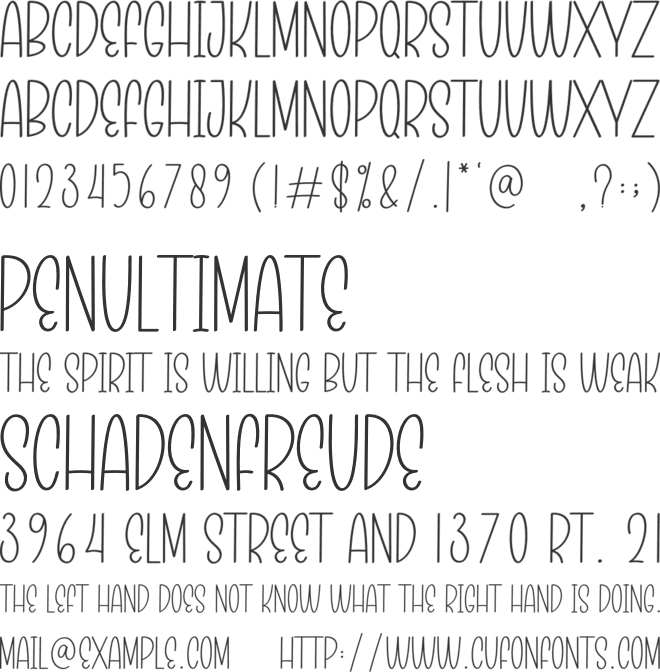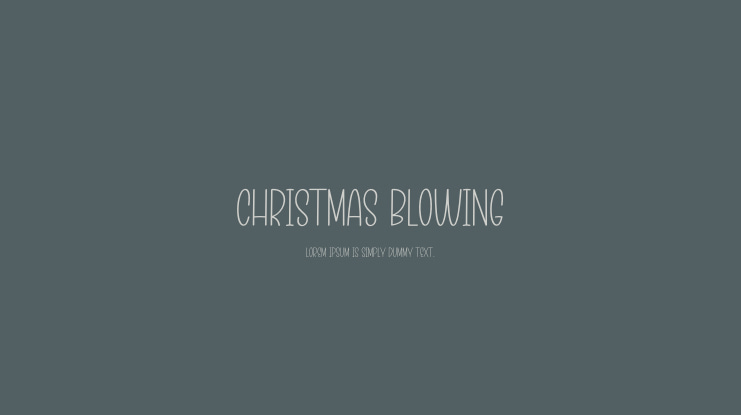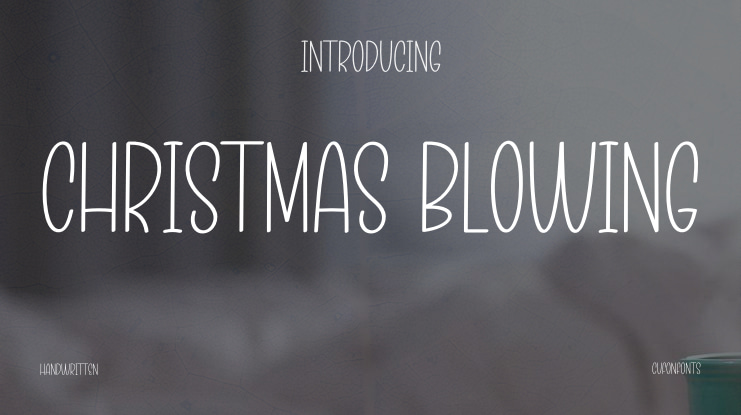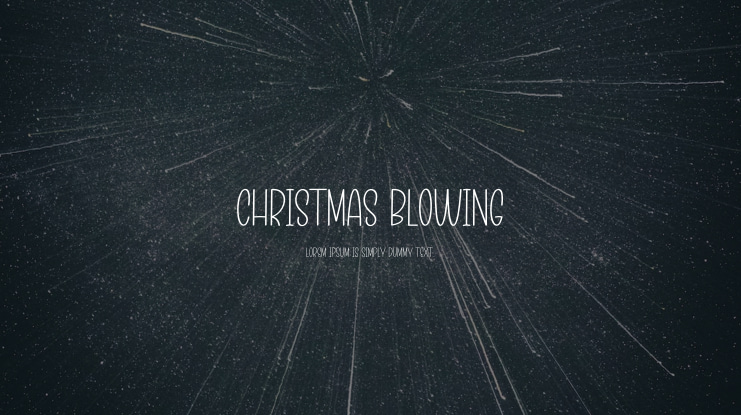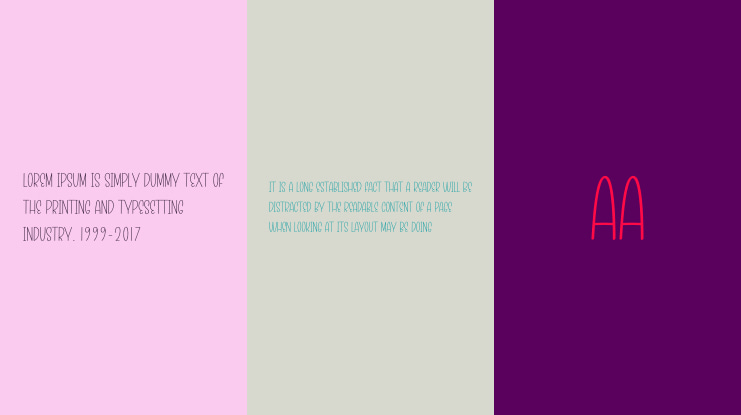
Our latest style of lettering is ideal for wall displays, wedding invitations, social media post logos, advertisements, product packaging, product designs, labels, photography, watermarks, invitations, stationery, and any project where elegant handwriting is desired.